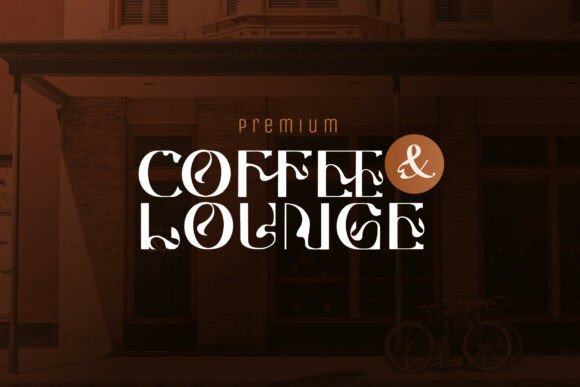
Introducing BUTIQUE FONT: A Psychedelic Display Font Inspired by the 1960s
In the world of typography, fonts play a crucial role in conveying the tone and aesthetic of a brand or design project. For those seeking a font that embodies the free-spirited and creative vibes of the 1960s, BUTIQUE FONT is an exceptional choice. This display font features curvy, classy shapes that are reminiscent of the psychedelic era, making it perfect for a variety of design projects.
BUTIQUE FONT is a display font designed to capture the essence of the 1960s psychedelic movement. Its curvy, classy shapes evoke a sense of nostalgia and playfulness, while also exuding a sense of sophistication and elegance. The font’s unique design makes it highly versatile, suitable for a range of applications, from showcasing poster typography to creating logotypes, editorial layouts, magazines, and even merchandise like t-shirts or stickers.
- Psychedelic Inspiration: BUTIQUE FONT draws inspiration from the vibrant and colorful world of 1960s psychedelia, making it perfect for designs that require a retro or vintage touch.
- Curvy and Classy Shapes: The font’s curvy, flowing lines and shapes give it a distinctive, elegant feel that’s ideal for creating eye-catching headlines and titles.
- Highly Versatile: BUTIQUE FONT can be used for a wide range of design projects, from posters and magazines to logotypes and merchandise.
- Display Font: As a display font, BUTIQUE FONT is designed to make a statement, making it perfect for use in titles, headings, and other prominent text elements.
Poster Typography
BUTIQUE FONT is perfect for creating eye-catching poster typography. Its bold, curvy shapes and psychedelic inspiration make it ideal for posters promoting concerts, festivals, or other events.
Logotypes and Branding
The font’s elegant, sophisticated feel makes it suitable for creating logotypes and branding materials for businesses that want to convey a sense of creativity and playfulness.
Editorial Layouts and Magazines
BUTIQUE FONT can add a touch of elegance and sophistication to editorial layouts and magazines. Its curvy shapes and psychedelic inspiration make it perfect for use in titles, headings, and other prominent text elements.
Merchandise
The font’s bold, eye-catching design makes it ideal for use on merchandise like t-shirts, stickers, and other promotional items.
Use it as a Display Font
BUTIQUE FONT is designed to be used as a display font, so use it to make a statement in your designs. It’s perfect for titles, headings, and other prominent text elements.
Experiment with Colors
The psychedelic inspiration behind BUTIQUE FONT makes it perfect for use with bright, bold colors. Experiment with different color schemes to create eye-catching designs.
Pair it with Other Fonts
BUTIQUE FONT can be paired with other fonts to create a unique and interesting design. Try pairing it with a clean, sans-serif font for a striking contrast.
BUTIQUE FONT is a unique and versatile display font that’s perfect for designers looking to add a touch of psychedelic flair to their projects. Its curvy, classy shapes and elegant feel make it suitable for a wide range of design applications, from poster typography to logotypes and merchandise. With its highly versatile design and bold, eye-catching aesthetic, BUTIQUE FONT is an excellent choice for any designer seeking to create a statement piece.